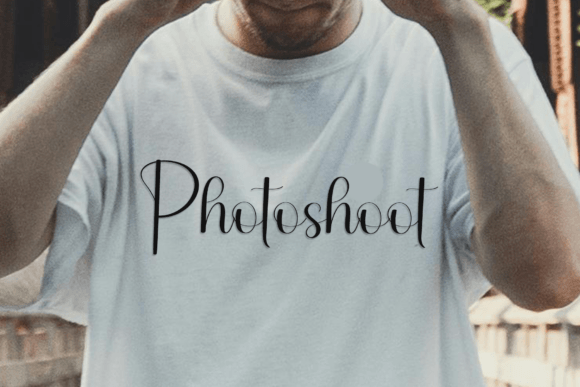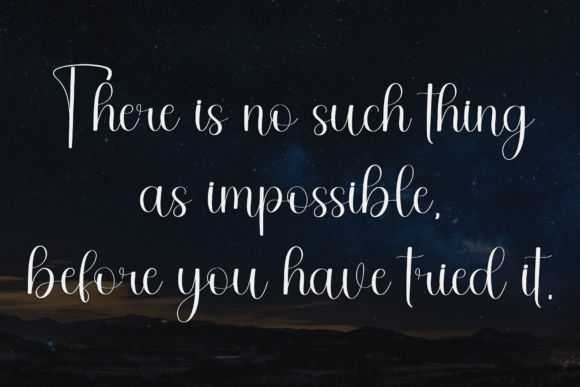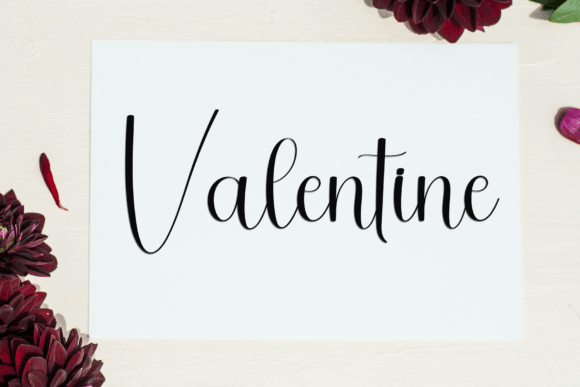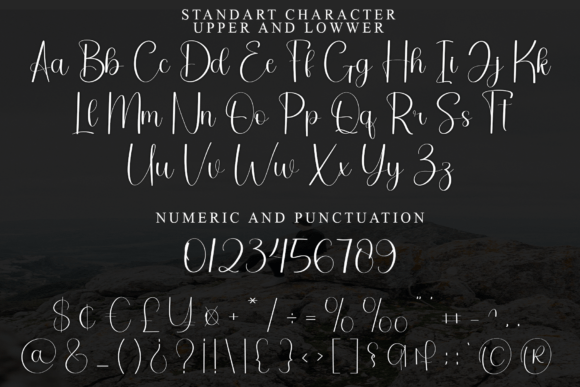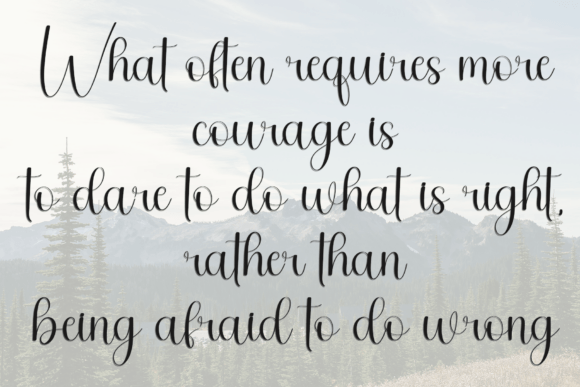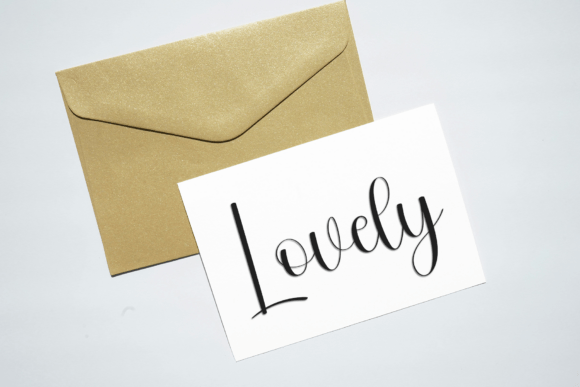
Introducing Farmhouse Font: A Festive and Merry Typeface for the Holiday Season
The holiday season is upon us, and with it comes the desire to create festive and merry designs that capture the spirit of the season. If you’re a designer or crafter looking for a typeface that embodies the whimsy and enchantment of the holidays, look no further than Farmhouse Font. This delightful font is perfect for adding a touch of magic to your designs, and in this article, we’ll explore its features and benefits in more detail.
Farmhouse Font is a decorative typeface that is specifically designed to evoke the feeling of the holiday season. With its intricate details and whimsical flair, it’s the perfect choice for creating designs that are festive, merry, and fun. Whether you’re working on greeting cards, gift tags, or holiday-themed projects, this font is sure to bring a smile to your face and a touch of enchantment to your words.
Farmhouse Font is a versatile typeface that is perfect for designers and crafters alike. Its decorative elements and whimsical flair make it ideal for a wide range of projects, from holiday-themed party invitations to festive gift tags and wrapping paper. Whether you’re creating digital designs or handmade crafts, this font is sure to add a touch of personality and whimsy to your work.
- Festive and merry design: Farmhouse Font is specifically designed to evoke the feeling of the holiday season, making it perfect for creating festive and merry designs.
- Decorative elements and whimsical flair: This font features intricate details and whimsical flourishes that add a touch of enchantment to your designs.
- Perfect for holiday-themed projects: This font is ideal for creating holiday-themed designs, from greeting cards and gift tags to wrapping paper and party invitations.
Here are a few tips for using Farmhouse Font in your designs:
- Use it for headlines and titles: Farmhouse Font is perfect for creating eye-catching headlines and titles that capture the spirit of the holiday season.
- Add it to your holiday-themed party invitations: This font is ideal for creating festive and merry party invitations that set the tone for a fun and festive celebration.
- Use it for gift tags and wrapping paper: Farmhouse Font is perfect for adding a touch of personality and whimsy to your gift tags and wrapping paper.
Farmhouse Font is a festive and merry typeface that is perfect for capturing the spirit of the holiday season. With its decorative elements and whimsical flair, it’s ideal for creating designs that are fun, festive, and full of personality. Whether you’re a designer or crafter, this font is sure to bring a touch of enchantment to your work. So why not give it a try and see how it can add some magic to your designs?
In conclusion, Farmhouse Font is a beautiful and versatile typeface that is perfect for designers and crafters looking to create festive and merry designs. Its PUA encoding makes it easy to use, and its decorative elements and whimsical flair make it ideal for a wide range of projects. We highly recommend adding Farmhouse Font to your font collection and using it to create stunning designs that capture the spirit of the holiday season.